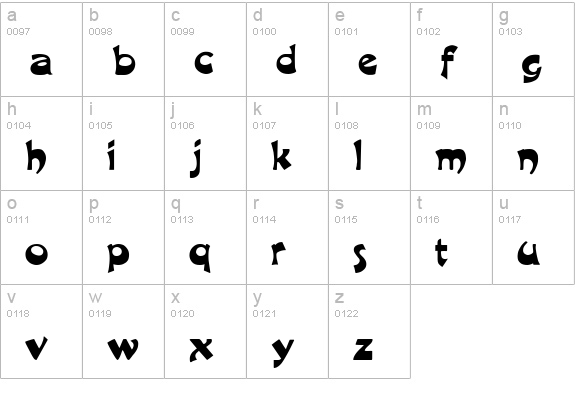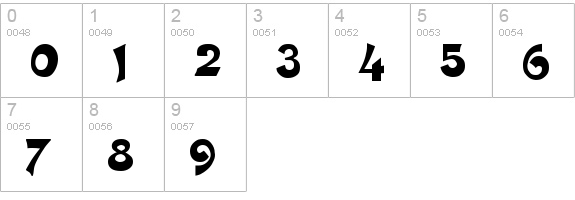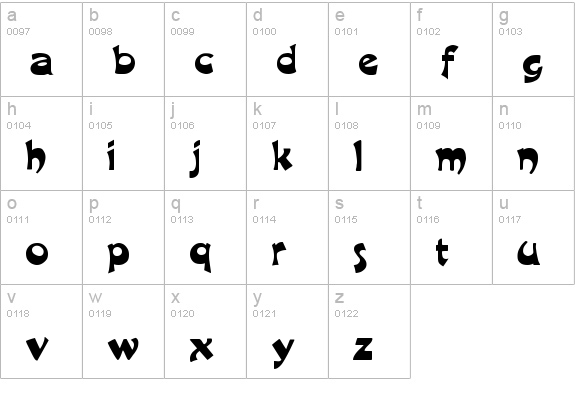
Excalibur Logotype Normal Font Details
Excalibur Logotype Normal is the standard, neutral variant in the Excalibur typeface family \xE2\x80\x94 well suited to general body text, paragraphs, and standard typographic work.
Excalibur Logotype Normal font is a stunning display typeface that exudes elegance and sophistication. Featuring clean lines and sharp angles, this font is perfect for creating eye-catching logos, headlines, and branding materials. Its sleek and modern design sets it apart, making it a versatile choice for a wide range of design projects. What sets Excalibur Logotype Normal font apart is that it is available for free download exclusively at FontsMarket.com. This means that you can access this high-quality font without any cost, making it a valuable addition to your font library. Whether you're a designer looking to elevate your projects or a business in need of a distinctive branding solution, Excalibur Logotype Normal font is sure to impress with its timeless appeal and professional look. Download it today and take your designs to the next level!